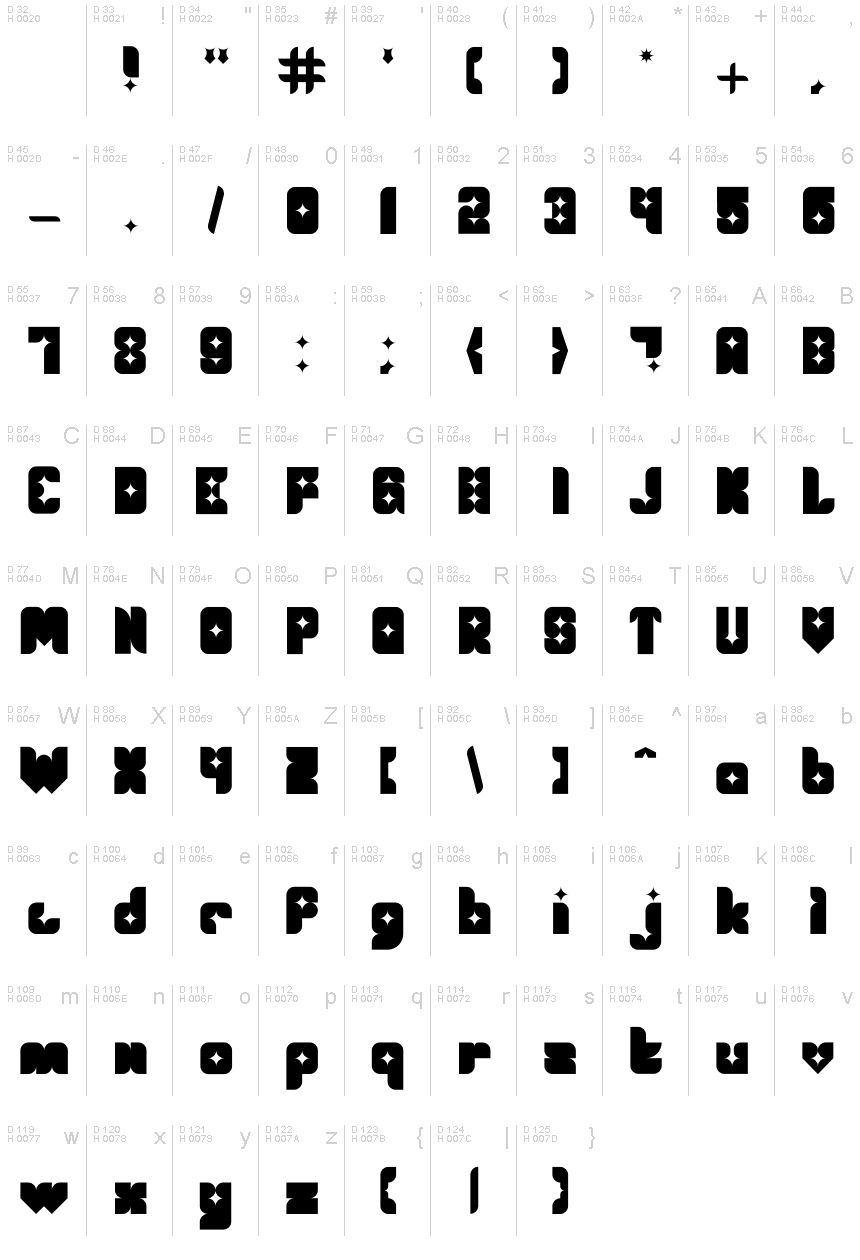
SaLaka Regular
Salaka font designed by Rilcilaksmiputri is an impressive decorative display font with bold features that instantly engage the viewer. The unusual attraction comes from intricate star patterns that can be seen inside every character that differentiates it from ordinary fonts. It’s a free personal use font ideal for projects needing some sense of ingenuity and stylishness i.e. posters, branding materials or headlines.
Both art and legibility are successfully incorporated into the design of this typeface hence making it usable for various visual design styles. Download SaLaka today to enhance your project with its distinctive style and make your text pop in any environment.